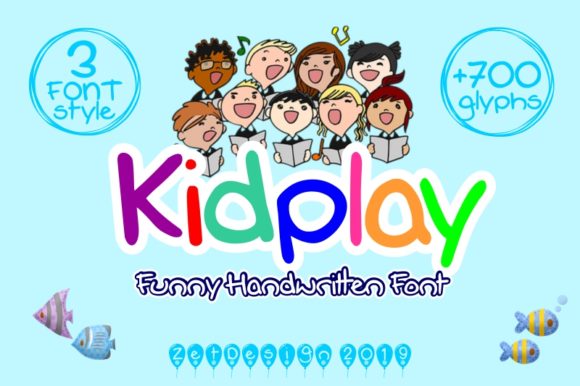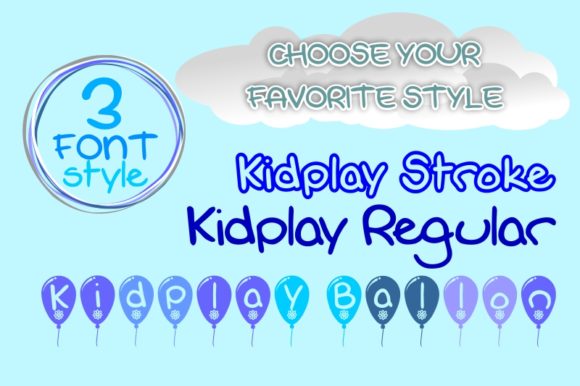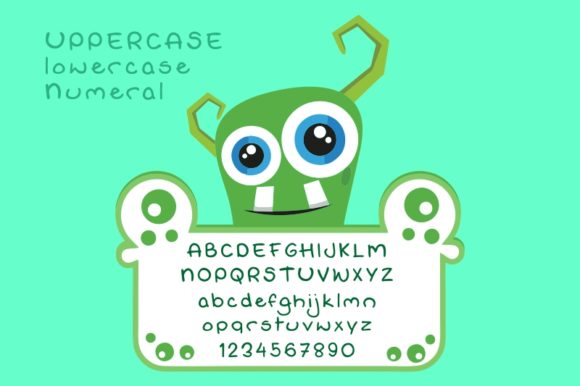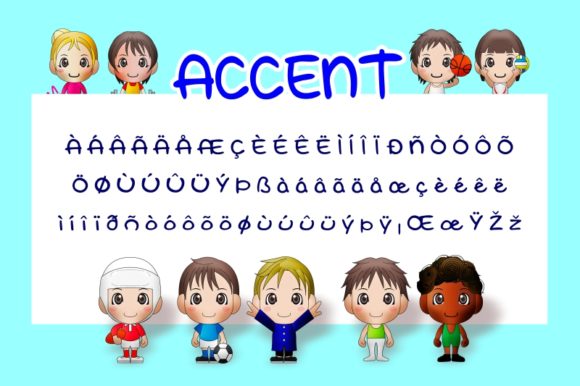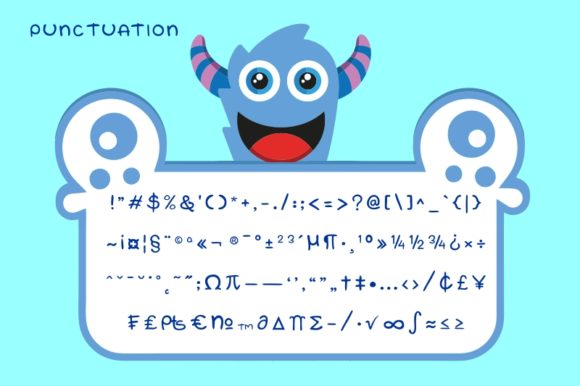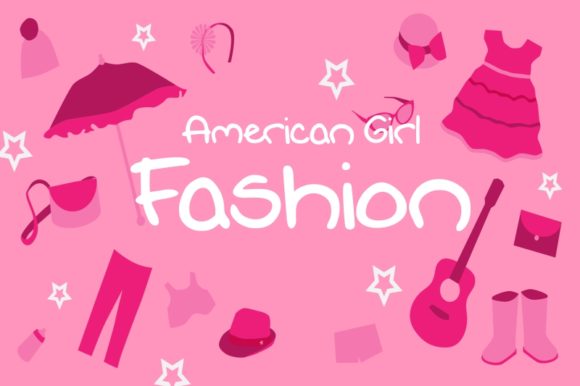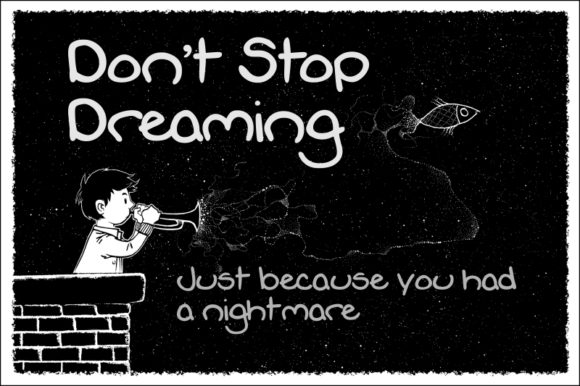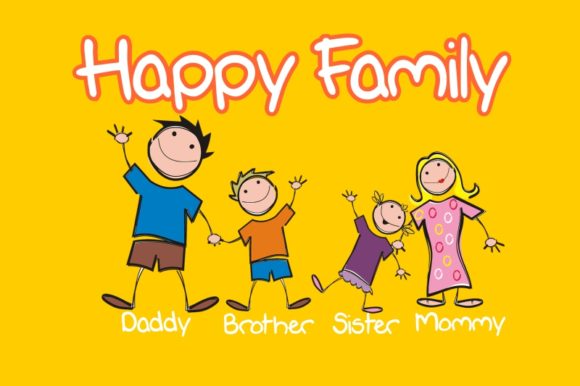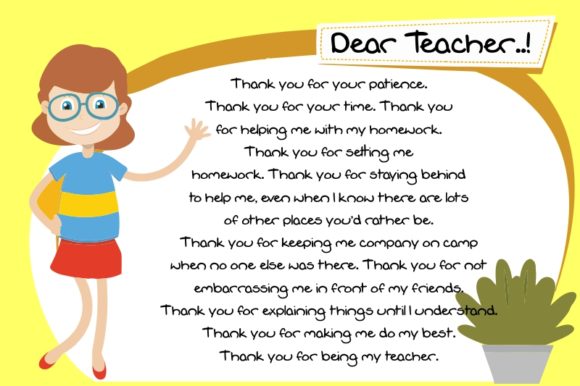
Kidplay Font
About Kidplay Font
Kidplay is an equally whimsical and cool handwritten font with a weird twist. Get inspired by its incredibly lovely feel, and turn any design project into a stand out!